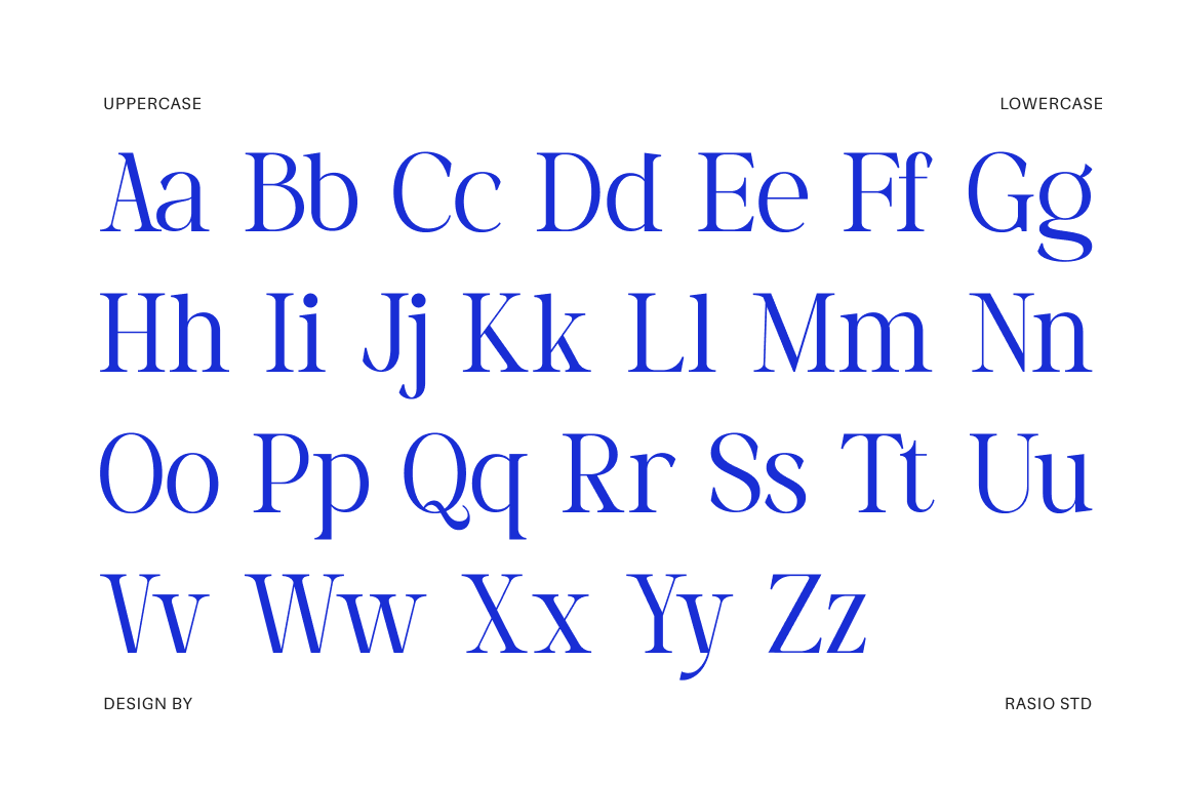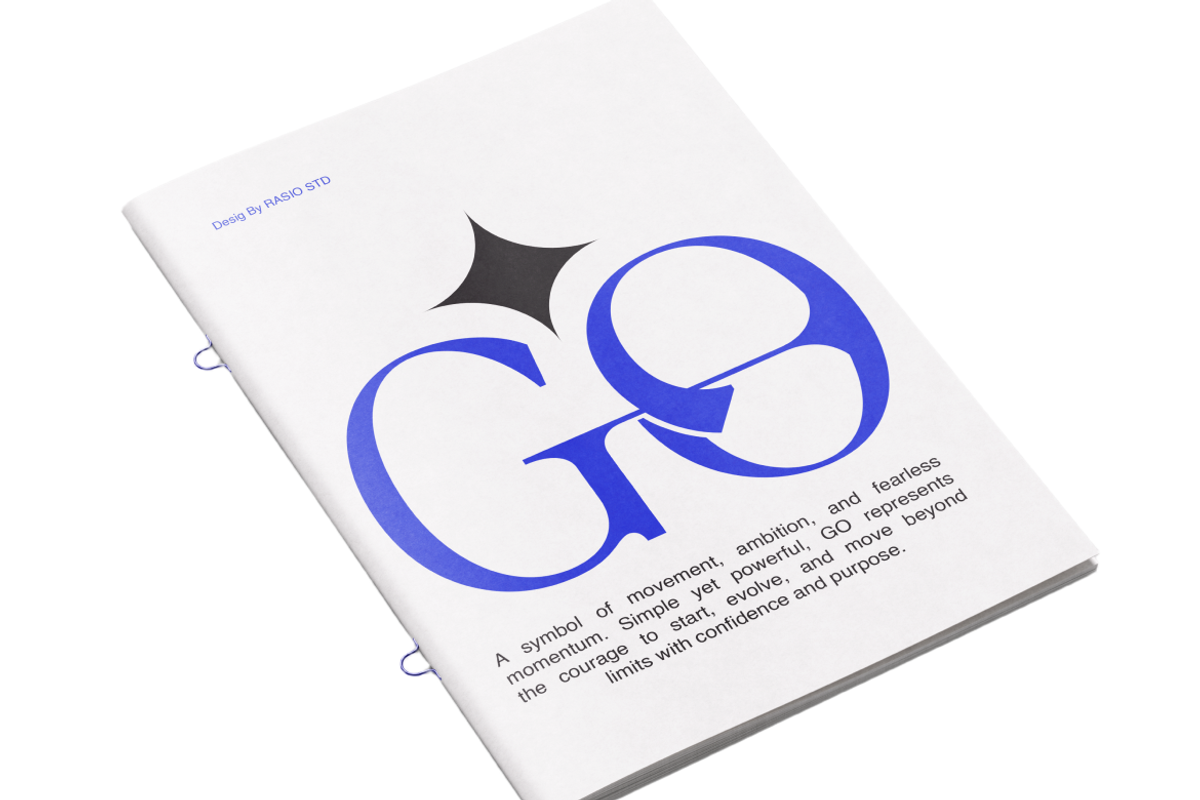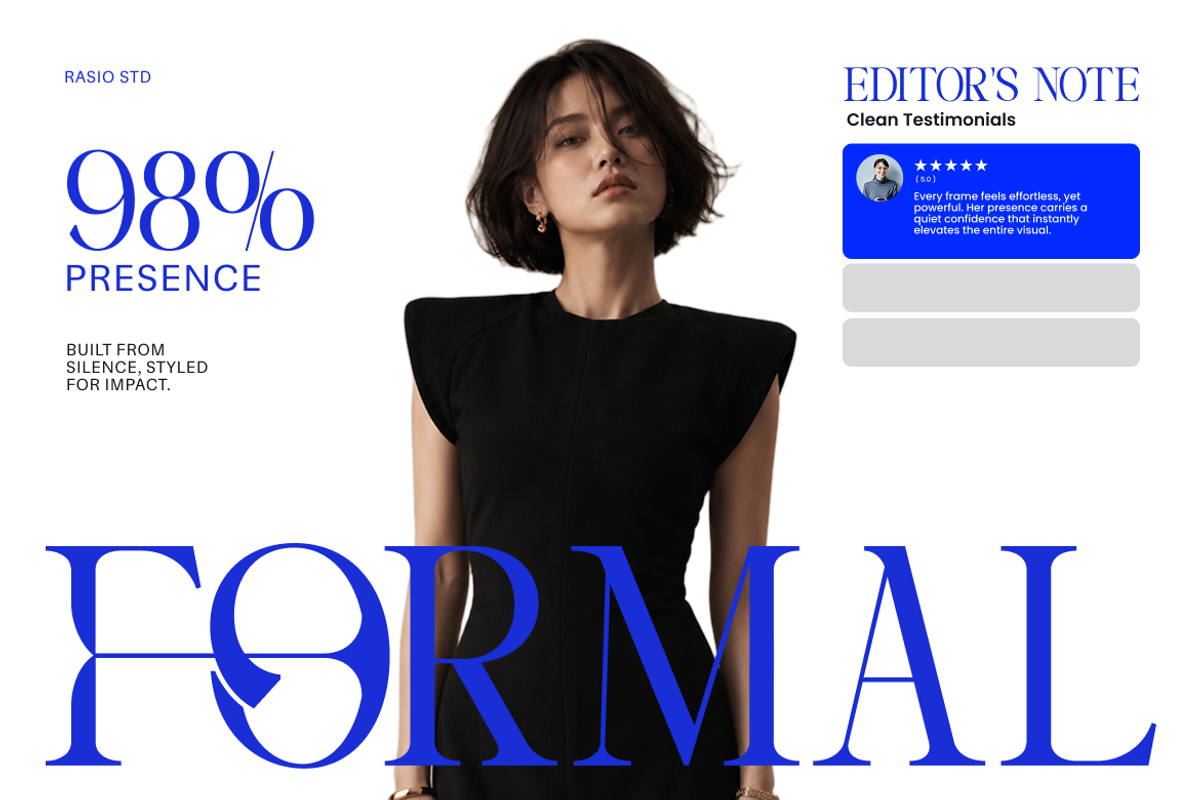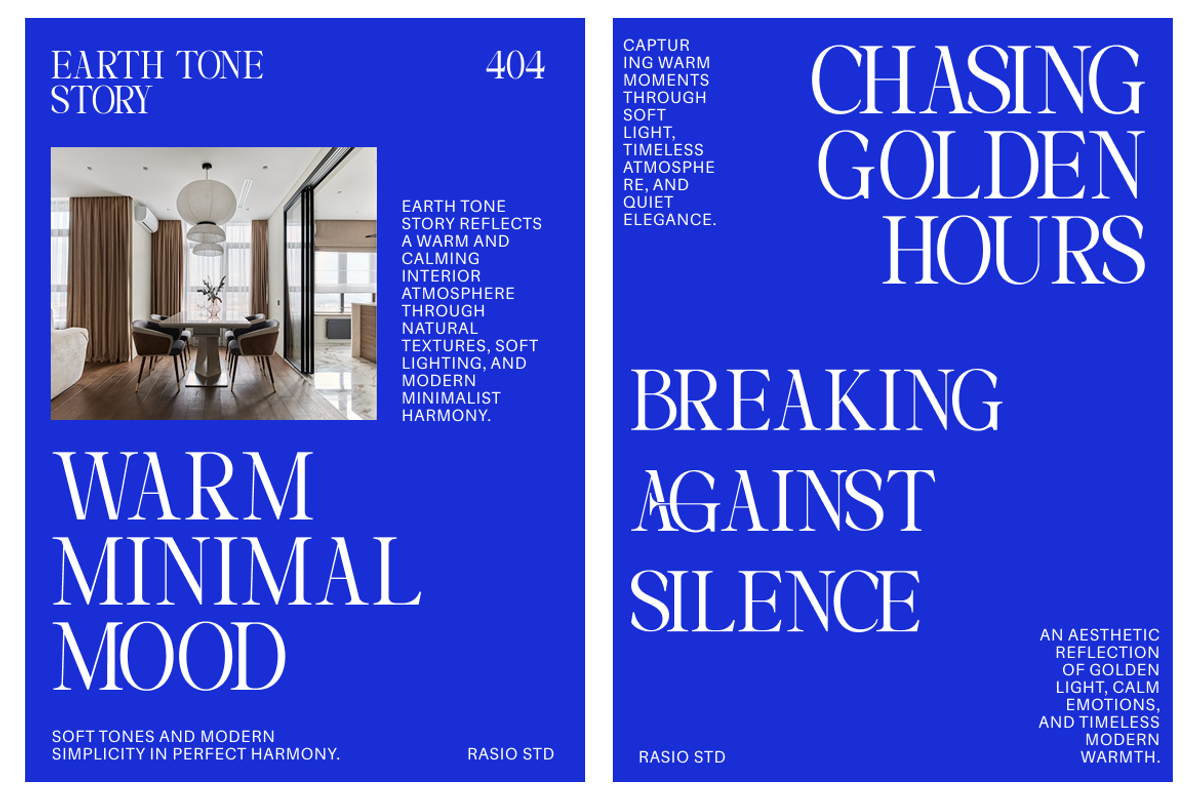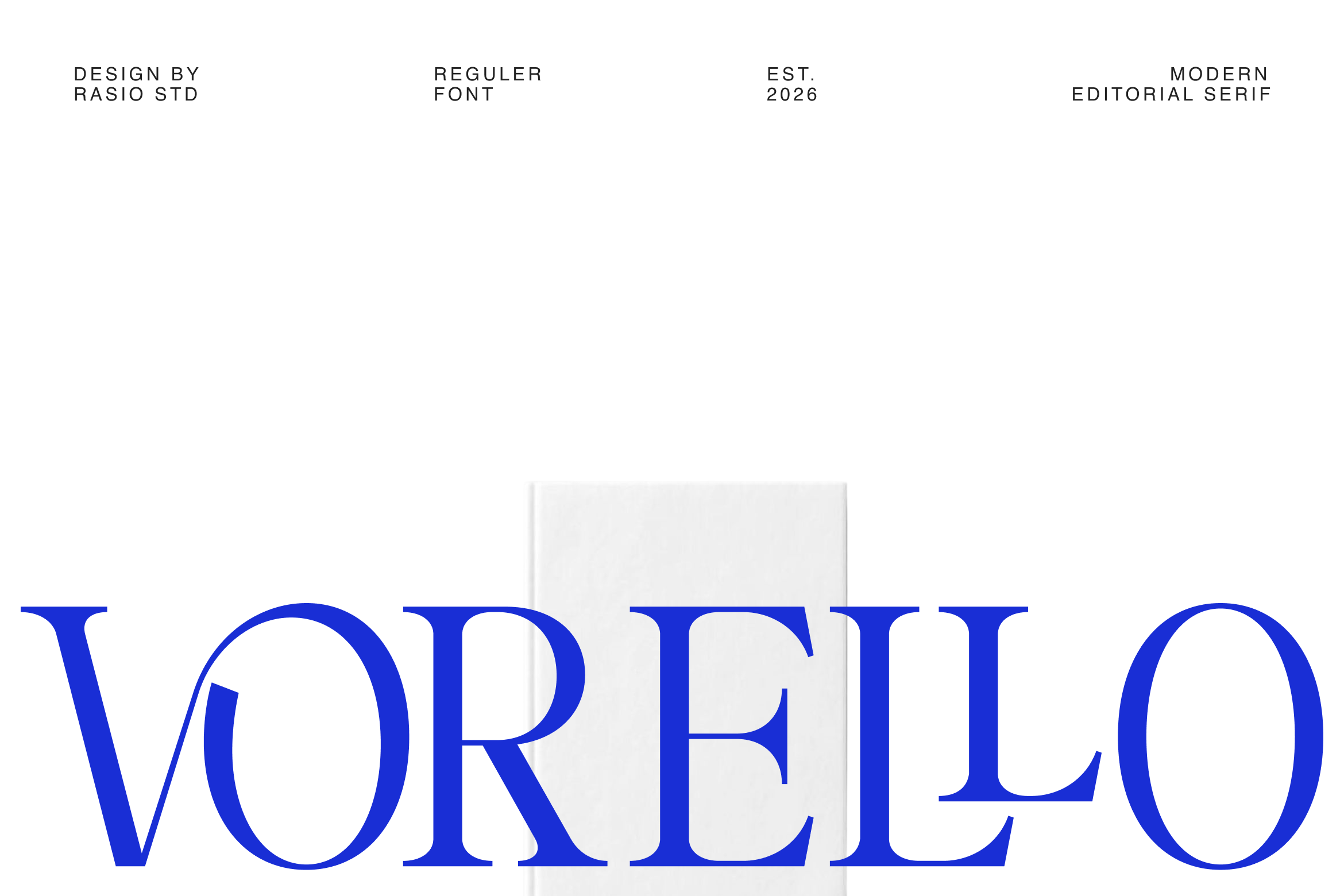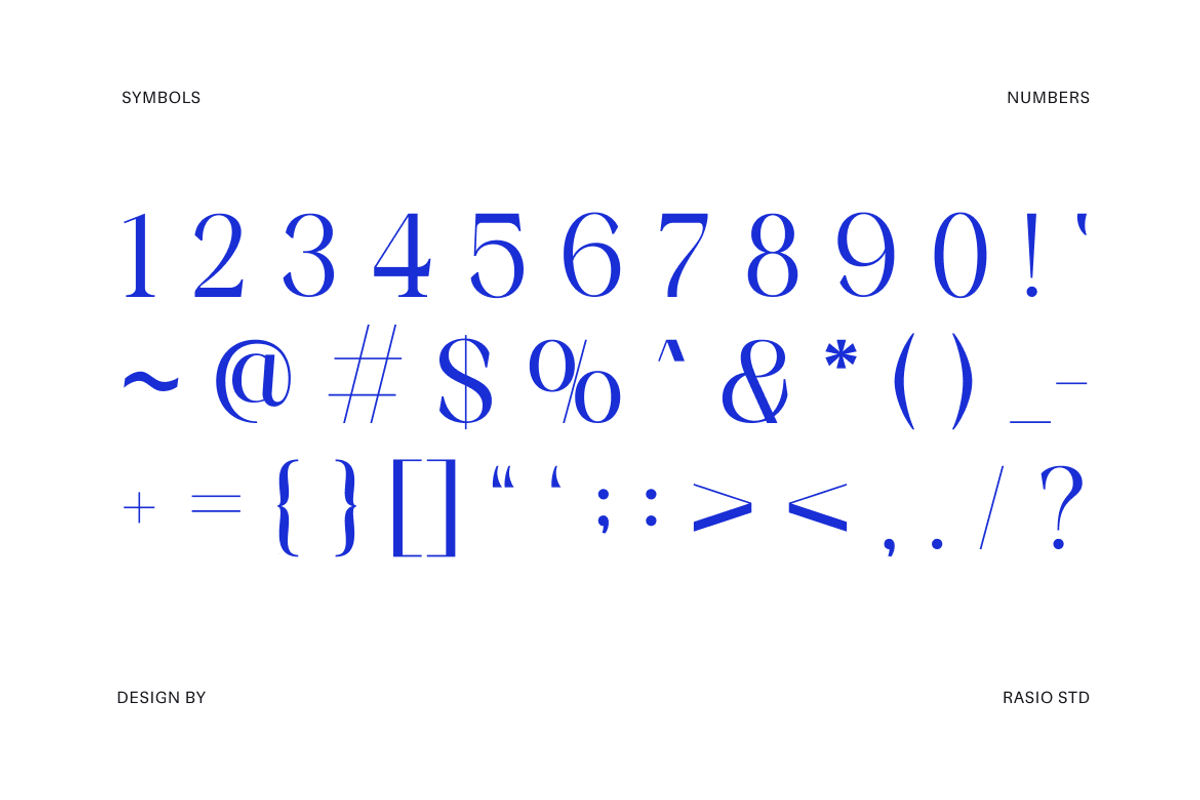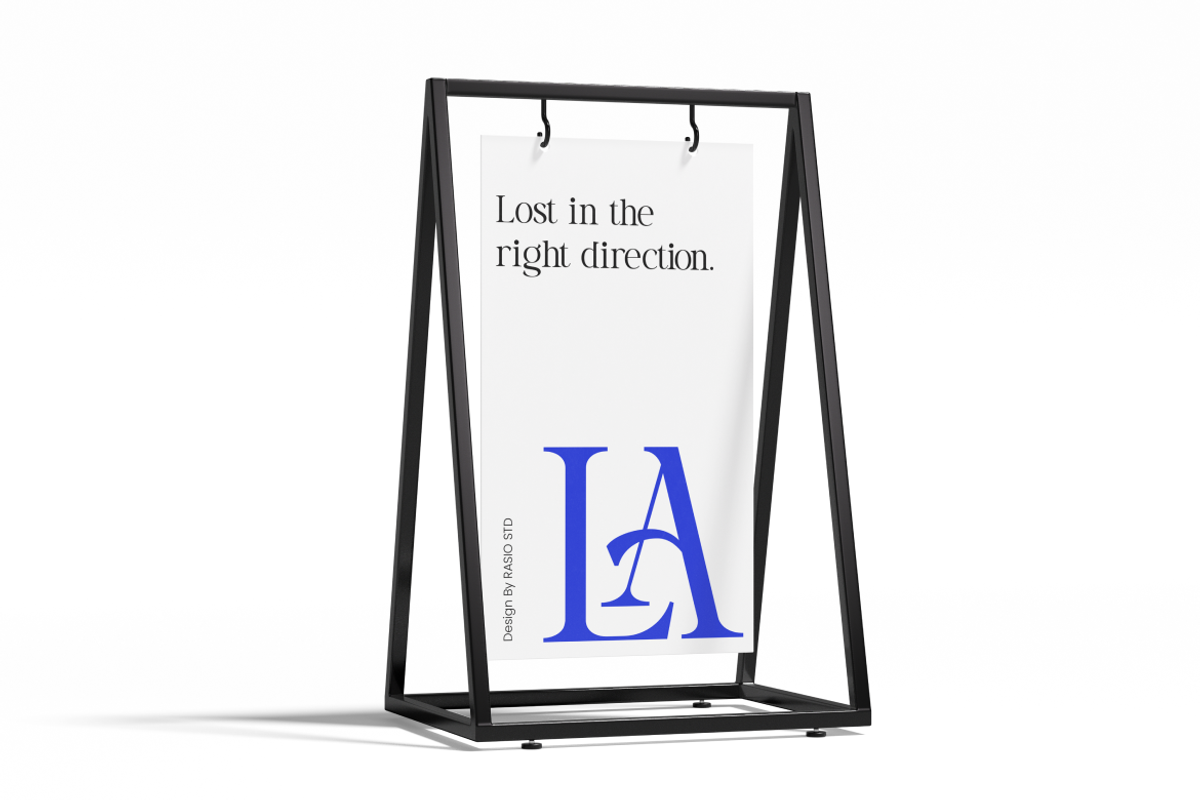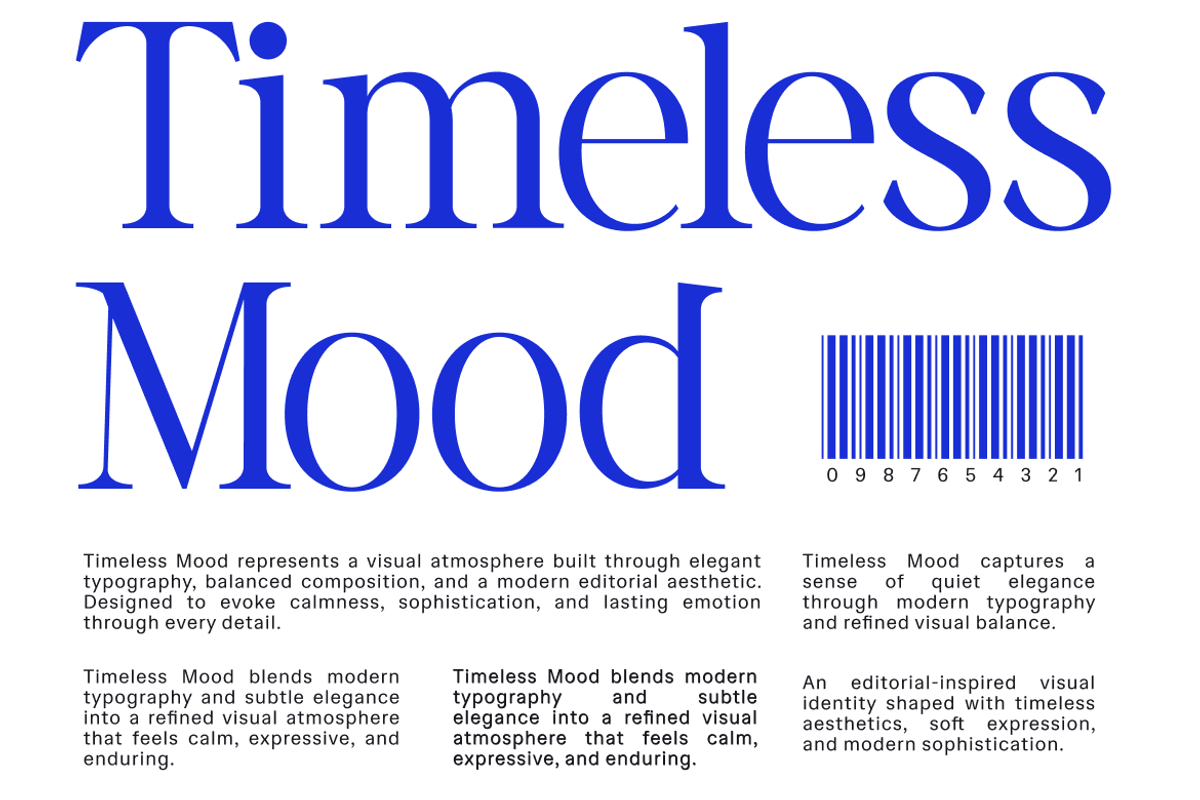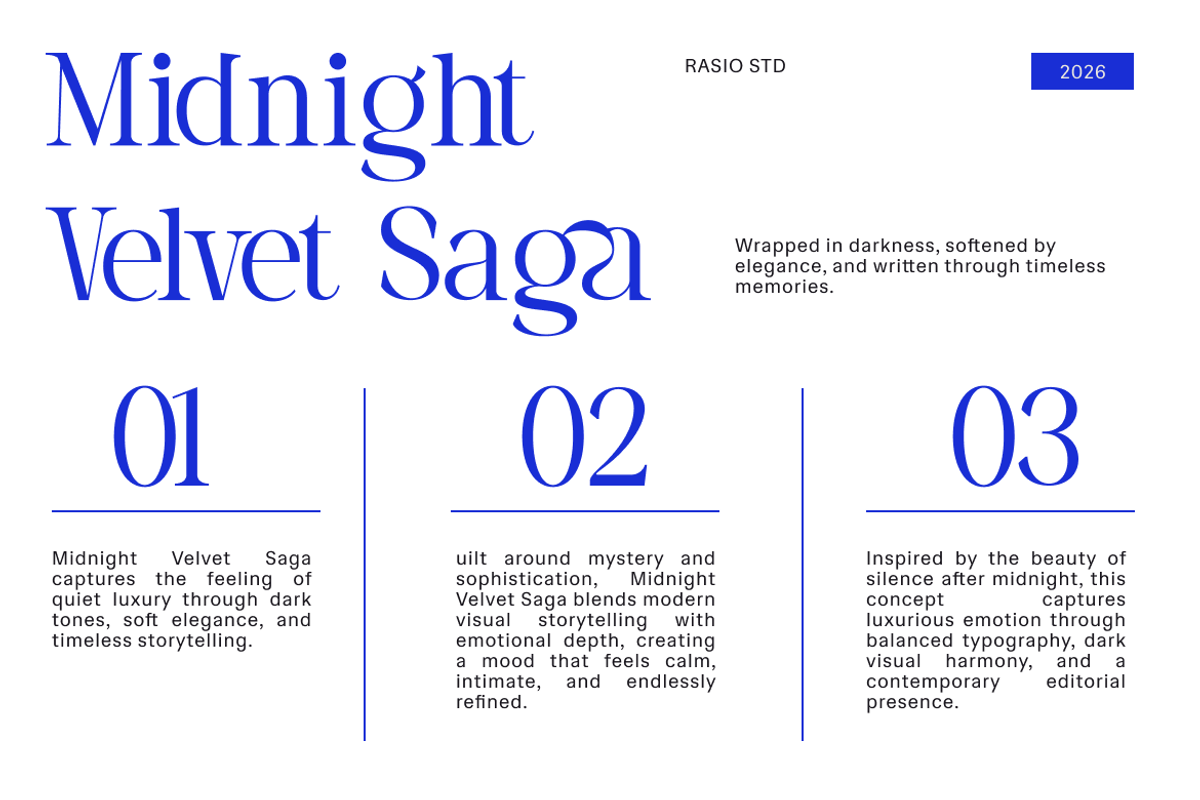
Vorello Modern Editorial Serif Font
Vorello Editorial Serif showcases a refined high-contrast serif style with graceful curves, elegant proportions, and sophisticated editorial aesthetics. The font includes uppercase and lowercase characters, numerals, punctuation, designed for premium branding, magazine layouts, luxury packaging, and artistic typography projects. This typeface is crafted for display purposes and works best in large headlines, branding compositions, editorial spreads, and sophisticated visual presentations.
Relevance & Use Cases is highly relevant for luxury branding, fashion campaigns, editorial publishing, beauty product packaging, interior design presentations, and sophisticated visual identities. The elegant serif construction and refined contrast make it suitable for magazine covers, premium logos, cosmetic branding, wedding stationery, social media campaigns, and artistic typography layouts requiring a graceful and timeless appearance.
Design Features :
High-contrast editorial serif structure with refined and graceful proportions
Sharp serif detailing combined with smooth transitional curves for elegance
Delicate stroke variation that enhances luxury and sophisticated aesthetics
Tall letterforms with balanced spacing for premium headline presentation
Stylish character construction designed for editorial layouts and luxury branding readability
Luxury fashion branding and premium visual identity systems
Editorial magazines, lifestyle publications, and artistic book covers
Cosmetic packaging, perfume labels, and beauty campaign designs
Elegant social media templates and sophisticated marketing materials
High-end logo design, boutique branding, and jewelry presentations
Screen-optimized kerning for responsive web design
Supports numerals, punctuation, and extensive symbol set
Refine your visual storytelling with Vorello crafted for luxury branding